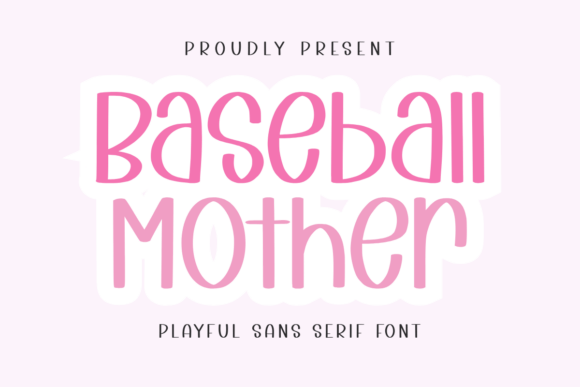
Design Inspiration Strikes
Have you ever stared at a blank canvas, waiting for that spark of creativity to strike? For designers, it’s a familiar feeling. One moment, you’re searching for the perfect font to bring your project to life. The next, you stumble upon a hidden gem that makes everything fall into place. That’s exactly what happens when you discover the Baseball Mother Font.
This charming sans serif font is more than just a pretty face – it’s a versatile tool designed to elevate your designs. Whether you’re crafting greeting cards, wedding invitations, or labels, Baseball Mother Font is the perfect companion. Its minimalist aesthetic makes it a valuable asset for designers seeking to create simple yet impactful designs. By incorporating Baseball Mother Font into your projects, you’ll unlock a world of creative possibilities and take your designs to the next level.
Baseball Mother Font Key Features
- Font Family: Baseball Mother Font is a unique, hand-drawn font designed specifically for sports and casual use.
- Character Count: The font contains over 400 characters, including uppercase and lowercase letters, numbers, and special characters.
- Unique Characteristics: The font features a playful, handwritten style with a sporty theme, making it perfect for baseball, sports, and casual designs.
Designer Review: Baseball Mother Font
At first glance, Baseball Mother Font is a charming and playful typeface. ✨ The unique blend of handwritten and script elements gives it a casual, approachable feel that’s perfect for creative projects or brands looking to add some personality.
Some of the standout features of Baseball Mother Font include:
- ✨ Beautifully crafted ligatures and swashes that add a touch of whimsy
- ✨ Friendly, approachable feel that works well in body text or display settings
- ✨ Supports a wide range of languages, making it a great option for international projects
- ⚠️ Some characters may appear slightly inconsistent in terms of spacing or alignment
- ⚠️ Not ideal for use in small sizes or high-contrast backgrounds
- ⚠️ Limited flexibility in terms of customizing the font’s weight or style
Overall, Baseball Mother Font is a solid choice for designers looking to add some personality to their projects. While it may have some limitations, its unique charm and friendly feel make it a great option for creative applications.
The Baseball Mother Font is a unique and playful font that is perfect for sports-themed designs, children’s party invitations, and retro-style posters.
Some tips for getting the most out of this font include:
- Pairing it with bold, bright colors to create a fun and energetic vibe.
- Using it for headings and titles to add a touch of whimsy to your design.
- Experimenting with different font sizes and styles to create visual interest.
Alternatives to Baseball Mother Font
Great Vibes Font is a modern script font with a casual feel. It’s perfect for designing posters, advertisements, and social media graphics that require a friendly and approachable tone. Great Vibes Font is more cursive and less rough than Baseball Mother Font, making it suitable for designs that need a softer look.
Pacifico Font is a beautiful, elegant script font inspired by the Pacific coast. It’s ideal for designing luxury brands, high-end products, and sophisticated websites. Pacifico Font is more refined and sophisticated than Baseball Mother Font, making it suitable for designs that require a touch of class.
Lobster Font is a fun, casual script font with a retro feel. It’s perfect for designing party invitations, menus, and other social events. Lobster Font is more playful and quirky than Baseball Mother Font, making it suitable for designs that need a lighthearted and humorous tone.